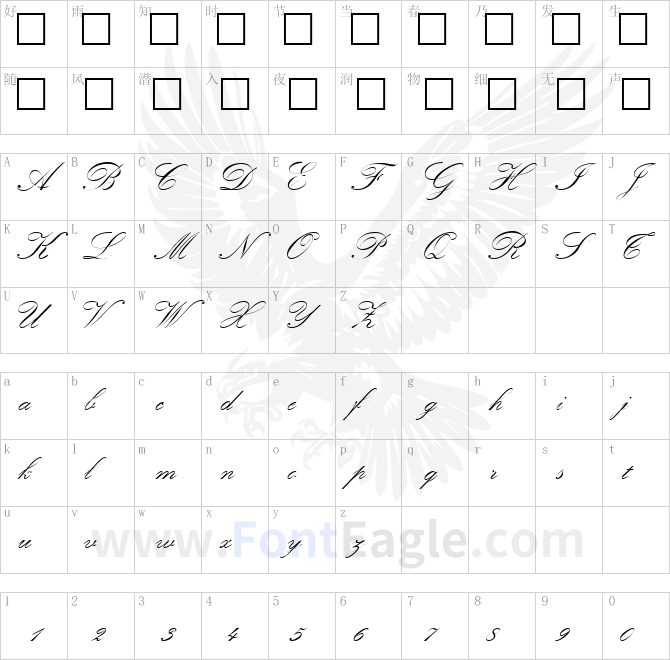
KremlinScriptTwo-Regular-DB is a great font, widely used in graphic design, single-page menu design, poster design and other fields, and is deeply loved by designers.KremlinScriptTwo-Regular-DB download.